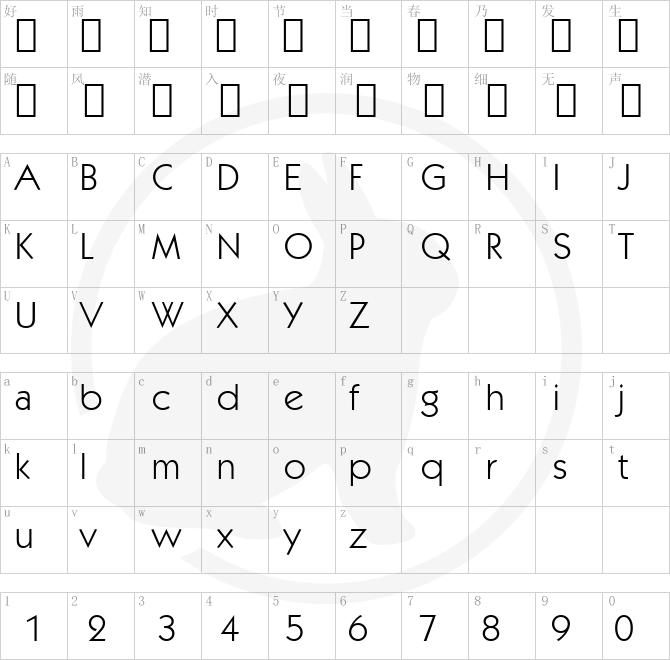
Kabel-Book-BT.ttf is a very beautiful artistic font, Kabel-Book-BT.ttf is widely used in the design and printing of various books and pictures,Kabel-Book-BT.ttf has a strong visual impact,Kabel-Book-BT.ttf is a commonly used font in newspapers, magazines and books, and is used in posters, e-commerce Poster design, store design, logo design, font design and other fields.Kabel-Book-BT.